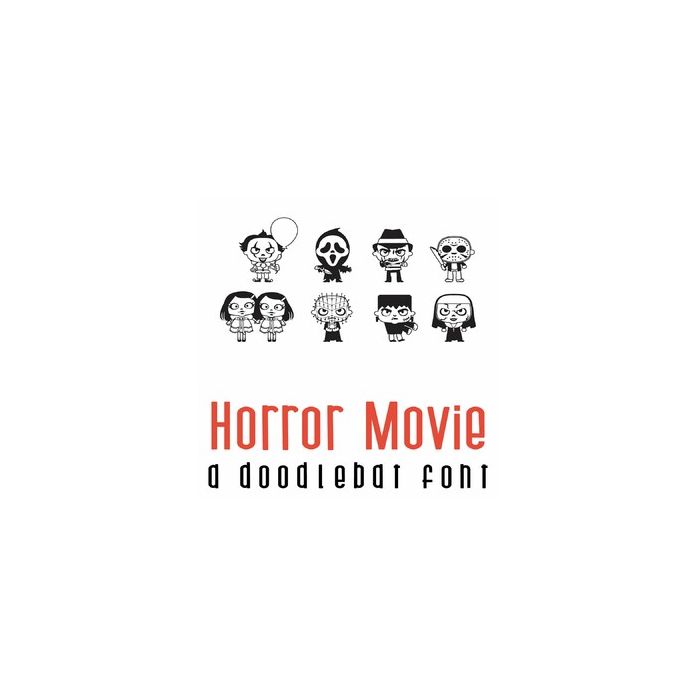
This spooky doodlebat font features 26 characters from your favorite spooky movies. Perfect for Halloween, parties, gifts, crafts, decor, planner stickers, scrap book pages and more!